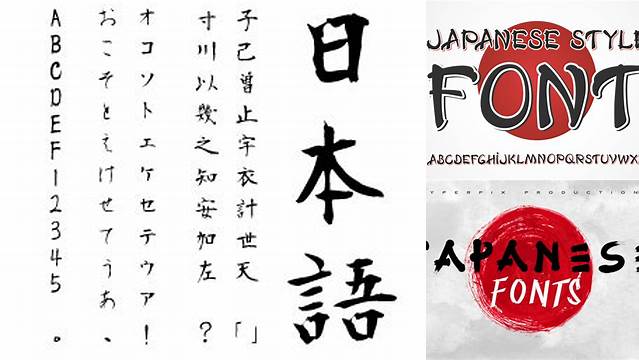
Japanese Fonts: Copy & Paste Guide [Free Styles]
Hey guys! Ever wanted to add a touch of Japanese flair to your texts? Whether you're designing a cool poster, creating social media content, or just want your messages to stand out, using Japanese fonts can be super effective. But where do you even start? Don't worry, we've got you covered! This article is your ultimate guide to finding, copying, pasting, and using Japanese fonts for free. We'll dive into everything from different font styles to where you can find them and how to use them, making your creative journey a breeze. Let's get started and explore the world of Japanese fonts!
1. Understanding Japanese Font Styles
Before we dive into copying and pasting, let's first get a handle on the different types of Japanese fonts. Just like English has serif and sans-serif, Japanese has its own unique categories that each bring a distinct flavor to your text. Understanding these styles will help you choose the perfect font for your project, whether it's a bold statement or a subtle accent. Knowing the nuances of each style can really elevate your designs and make them feel more authentic. So, let's break down the basics and explore the wonderful world of Japanese font styles.
What are the Basic Categories of Japanese Fonts?
Japanese fonts primarily fall into two major categories: Mincho and Gothic. Think of Mincho as the Japanese equivalent of Times New Roman – it's traditional, elegant, and perfect for formal documents or literary works. Mincho fonts are characterized by their delicate, serif-like strokes that give them a refined and classic appearance. On the other hand, Gothic fonts are similar to sans-serif fonts in English, offering a cleaner, more modern look. They're bold, easy to read, and commonly used in headlines, advertisements, and digital media. Gothic fonts lack the decorative strokes of Mincho, making them a great choice for conveying strength and clarity.
Mincho vs. Gothic: Key Differences and Usage
The main difference between Mincho and Gothic fonts lies in their stroke details and overall appearance. Mincho fonts have distinct serifs, or small strokes, at the end of each line, which adds to their elegance and formality. These fonts are often used in traditional Japanese books, newspapers, and formal correspondence. In contrast, Gothic fonts have clean, uniform strokes without serifs, giving them a more contemporary and straightforward feel. Gothic fonts are prevalent in signage, posters, and digital displays where legibility is crucial. Choosing between Mincho and Gothic depends largely on the tone and purpose of your message. For a sophisticated and traditional look, Mincho is the way to go. For a modern and impactful design, Gothic fonts are an excellent choice.
Exploring Other Japanese Font Styles
Beyond Mincho and Gothic, there are other styles to explore that add even more variety to your designs. Kaisho fonts, for instance, are inspired by traditional calligraphy and offer a semi-cursive, flowing appearance. They're often used for elegant invitations or certificates. Another popular style is Gyosho, which is even more cursive and artistic than Kaisho, adding a touch of fluidity and grace to your text. Lastly, there are Reisho fonts, which are based on ancient seal script and provide a unique, historical feel. These fonts are great for adding an old-world charm to your projects. By exploring these different styles, you can find the perfect Japanese font to match your creative vision.
Open-Source Japanese Font Resources
Open-source fonts are a fantastic option because they come with licenses that allow you to use, modify, and distribute them freely. This makes them ideal for a wide range of projects, from personal designs to commercial applications. Beyond Google Fonts and Font Library, you can find open-source Japanese fonts on platforms like GitHub and SourceForge. These sites often host font projects created by individual designers or communities. When using open-source fonts, it's always a good idea to review the specific license agreement (usually a file named LICENSE or README) to understand the terms of use. Open-source fonts not only provide you with great design resources but also support the collaborative spirit of the open-source community.
Speaking of licensing, it's crucial to understand the different types of font licenses before using any font in your project. The most common types of licenses are free for personal use, free for commercial use, and open-source. A font licensed for personal use can be used in projects that aren't intended for profit, such as personal blogs or school assignments. Fonts licensed for commercial use can be used in projects that generate revenue, like advertisements or product packaging. Open-source licenses are the most permissive, allowing you to use, modify, and distribute the font as you see fit. Always check the font's license agreement, which is usually included in the download package, to ensure you're using it legally and ethically. Understanding font licensing protects both you and the font designer, ensuring a smooth and respectful creative process.
3. Copying and Pasting Japanese Fonts
Okay, you've found some awesome Japanese fonts, now what? Copying and pasting might seem straightforward, but there are a few tricks to getting it right, especially when dealing with different software and operating systems. We'll walk you through the process step-by-step, ensuring your Japanese fonts display correctly wherever you need them. Let's make sure those beautiful characters show up perfectly in your designs and documents!